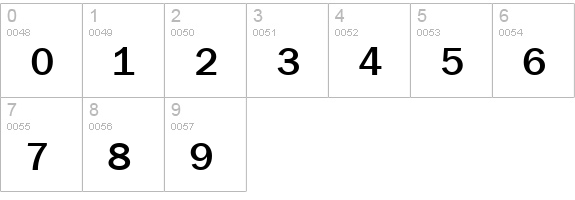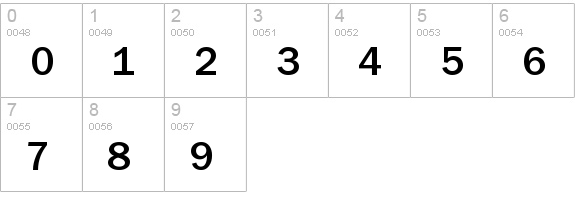
FranklinGothMediumCTT Font Details
FranklinGothMediumCTT is a versatile and timeless font that exudes elegance and professionalism. Its clean lines and balanced proportions make it ideal for a wide range of design projects, from branding to editorial layouts. The medium weight of the font strikes the perfect balance between readability and impact, making it suitable for both headlines and body text. One of the best features of FranklinGothMediumCTT is that it is free to download at FontsMarket.com. This means that you can easily access this high-quality font without any cost, making it a valuable addition to your font library. Whether you are a designer, a student, or a business owner looking to elevate your branding, FranklinGothMediumCTT is a must-have font that will enhance the visual appeal of your projects. With its classic design and modern appeal, FranklinGothMediumCTT is sure to become a go-to font for all your design needs. Download it for free today at FontsMarket.com and start creating stunning visuals with this sophisticated and versatile typeface.